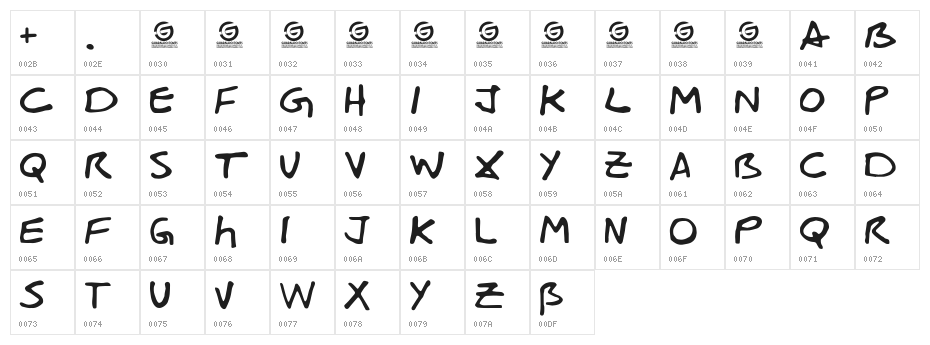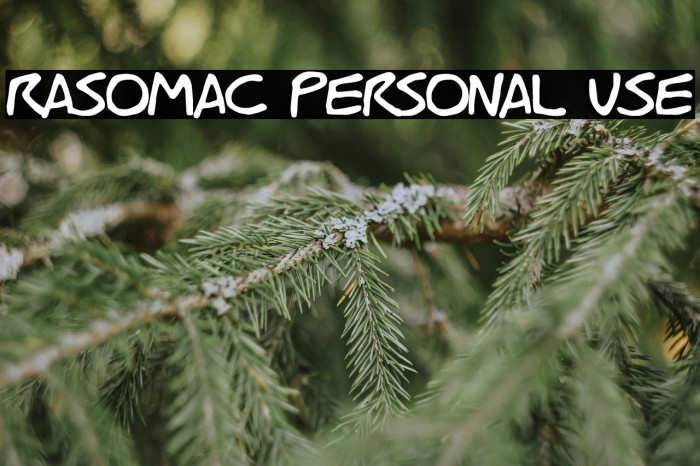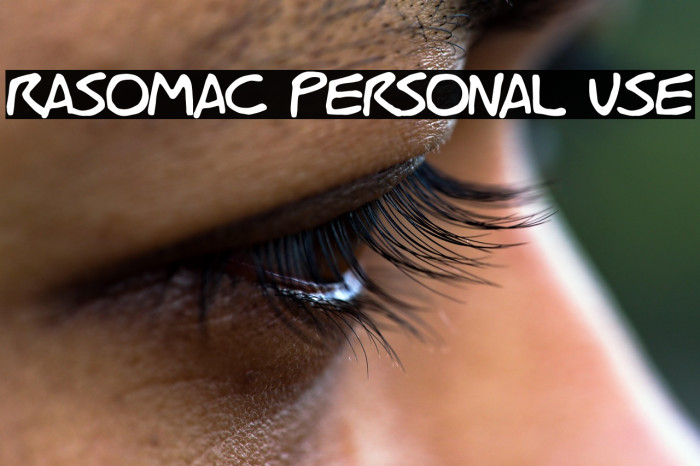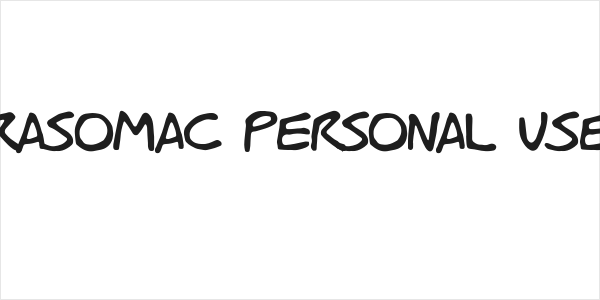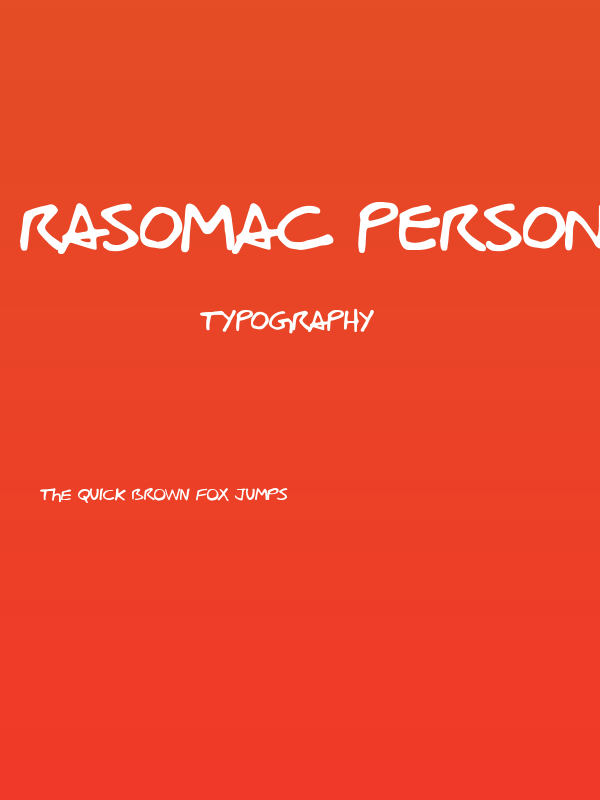
Rasomac Personal Use Font
Rasomac Personal Use Description
This font features a bold, handwritten style with a playful and dynamic appearance. The letters are slightly slanted, giving a sense of motion and energy. The strokes are thick and consistent, providing a strong visual impact. The characters are well-spaced, ensuring readability while maintaining a casual and informal tone. This font is ideal for projects that require a personal touch or a creative flair, such as invitations, posters, or branding materials. Its unique style makes it stand out, capturing attention with its lively and expressive design.
| Proposed Projects | Ideal for invitations, posters, branding materials, and creative projects. |